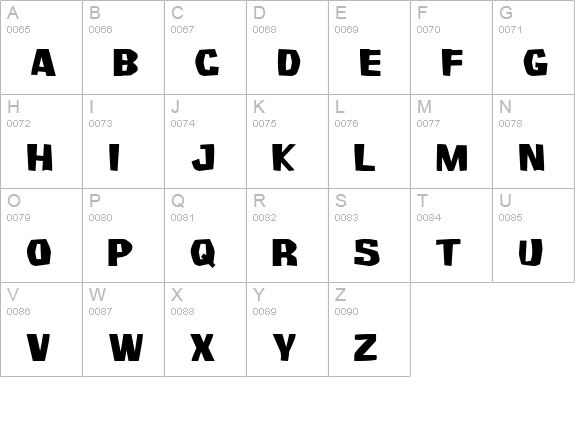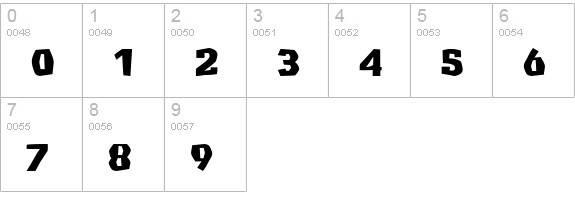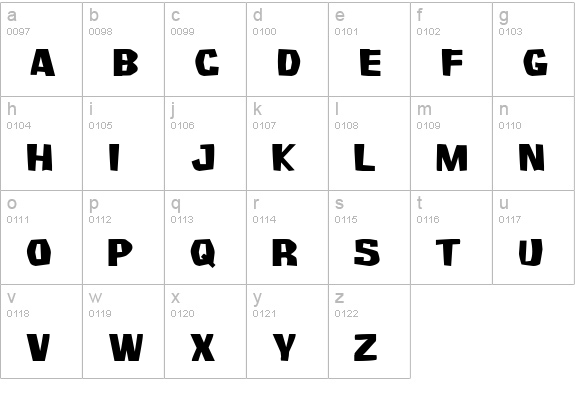
Survivant Font Details
Survivant font is a sleek and modern typeface that exudes a sense of strength and elegance. With its bold lines and sharp edges, this font is perfect for creating eye-catching designs that demand attention. Whether you're looking to add a touch of sophistication to your branding or want to make a statement with your typography, Survivant font is the perfect choice. Best of all, Survivant font is available for free download at FontsMarket.com. That's right, you can get your hands on this stunning font without spending a dime. Simply head over to FontsMarket.com to download Survivant font and start using it in your projects today. With its versatile style and timeless appeal, Survivant font is sure to become a staple in your design toolkit.